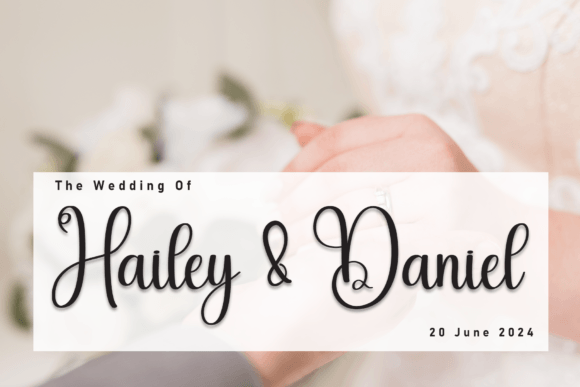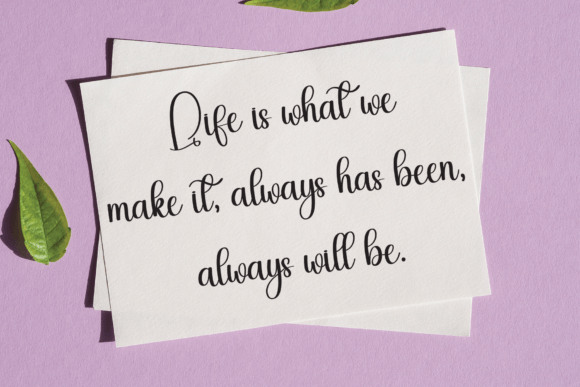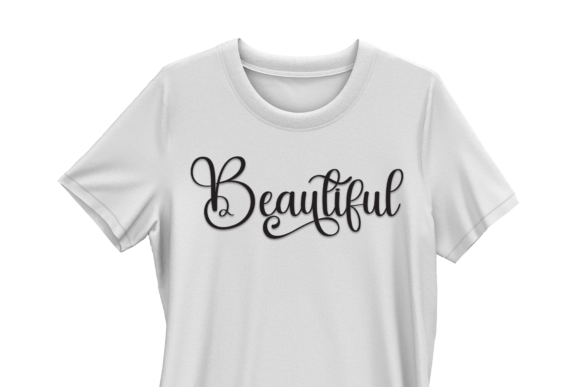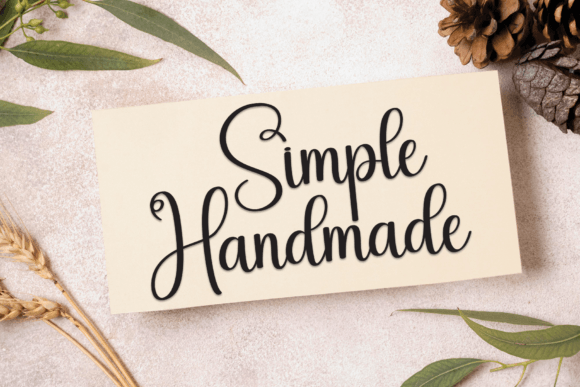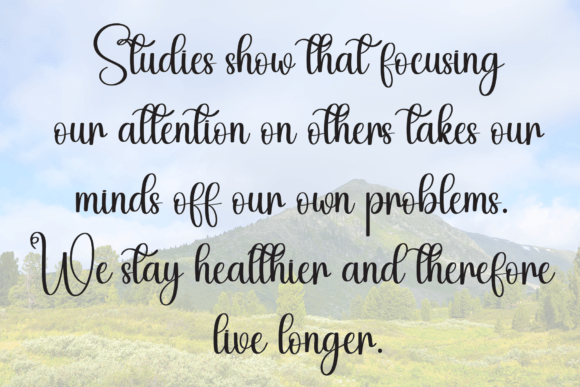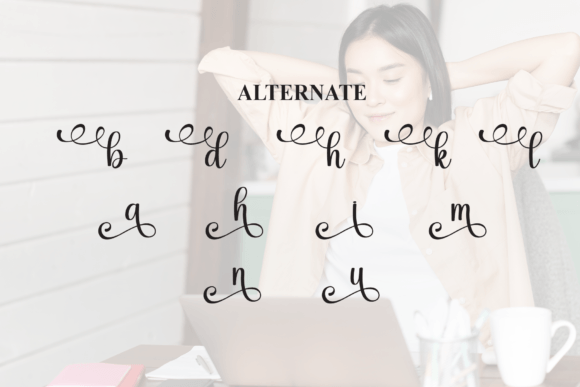
The Break Font: A Sweet and Friendly Companion for Your Designs
Have you ever been in the middle of a design project, and suddenly, you’re stuck on finding the perfect font? I recall a recent experience where a client asked for a “friendly and approachable” vibe for their branding. As I scrolled through my font library, I stumbled upon Break Font, and it instantly clicked. Its natural, handwritten style seemed to scream “I’m here to help!” In this article, I’ll share my journey with Break Font, its features, and how you can make the most of it in your designs.
An Honest Review of Break Font
So, what makes Break Font special? Let’s dive into the good stuff and a few quirks I’ve discovered.
- ✨ Unique yet natural style: Break Font stands out with its sweet and friendly tone, making it perfect for a wide range of designs.
- ✅ Highly versatile: From crafting to digital designs, Break Font seems to fit right in.
- 💫 Ease of use: The font is easy to read and works well in various sizes, making it a great choice for both headings and body text.
While Break Font is incredibly useful, there are a couple of things to keep in mind:
- 🤔 Limited formal applications: Given its friendly nature, Break Font might not be the best fit for very formal or corporate designs.
- ⚠️ Glyph availability: Some advanced typographic features might require additional setup in certain design software.
Exploring Alternatives: Similar Fonts to Break Font
While Break Font is wonderful, it’s always good to have alternatives. Here are a few fonts that share a similar vibe:
- Lobster: A more elegant, yet still friendly option. Ideal for when you need a bit more sophistication.
- Pacifico: Offers a beautiful, modern script feel. Great for designs that need a bit of a contemporary edge.
- Great Vibes: A fun, adventurous font perfect for projects that require a playful touch.
- Alex Brush: A lovely handwritten font with a more artistic feel. Suitable for creative projects and personal branding.
The Story Behind Break Font: Designer Inspiration
While the exact origins of Break Font might not be well-documented, it’s clear that the designer aimed to create a font that feels approachable and warm. Imagine a designer sitting down with a pen and paper, aiming to craft a font that could be used in a variety of friendly, creative projects. That’s Break Font in a nutshell.
Q: Is Break Font suitable for professional branding?
A: Absolutely! Its friendly and approachable style makes it perfect for brands looking to connect with their audience on a personal level.
Q: Does Break Font support OpenType features?
A: Yes, Break Font likely supports various OpenType features, which can be accessed in compatible software like Adobe Photoshop and Illustrator.
A: Definitely! Break Font’s friendly style makes it perfect for personal projects, crafts, and hobbies.